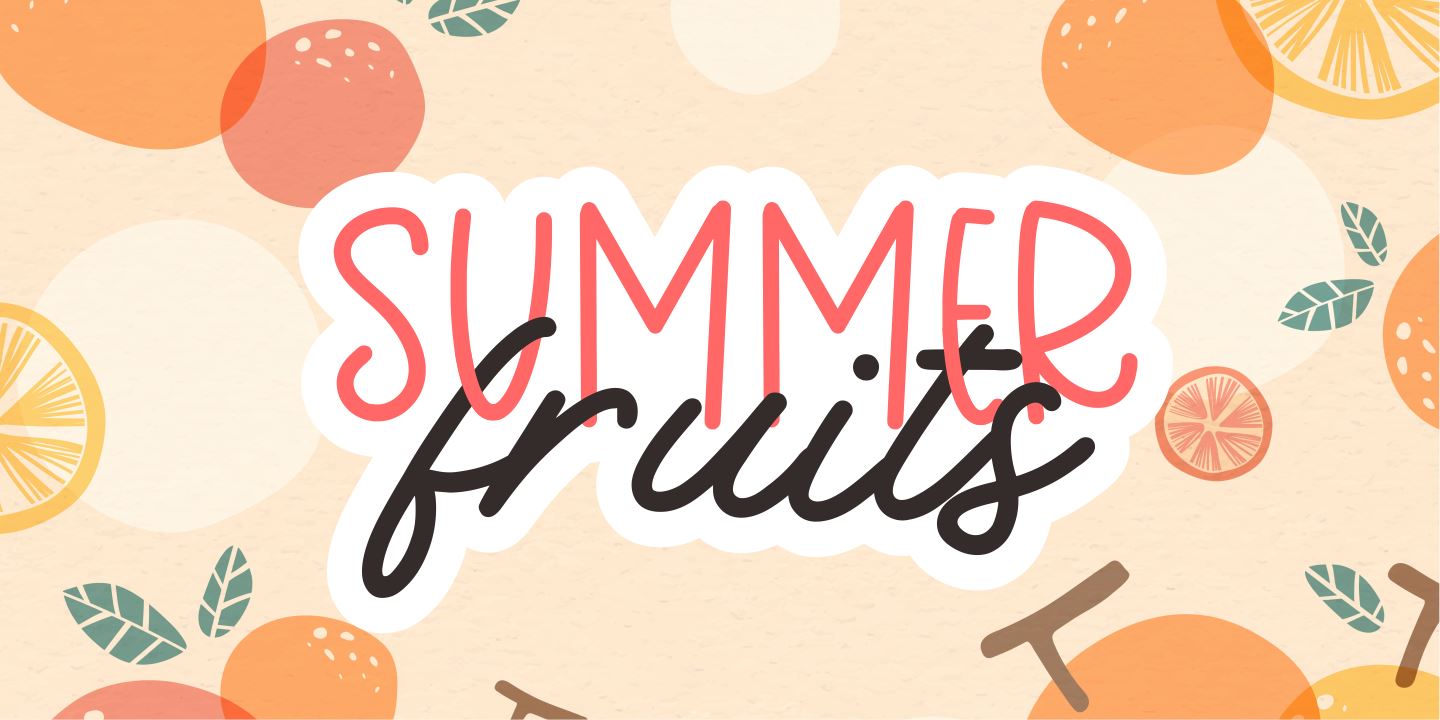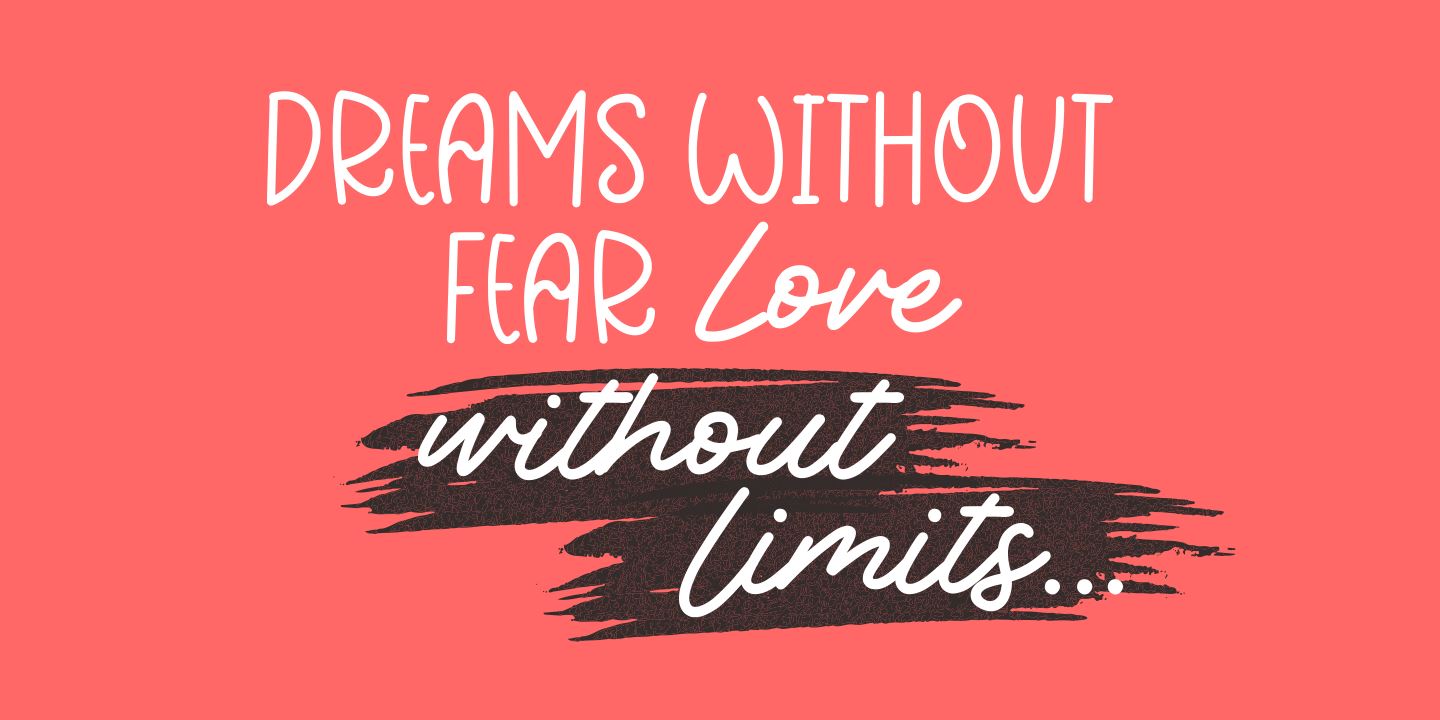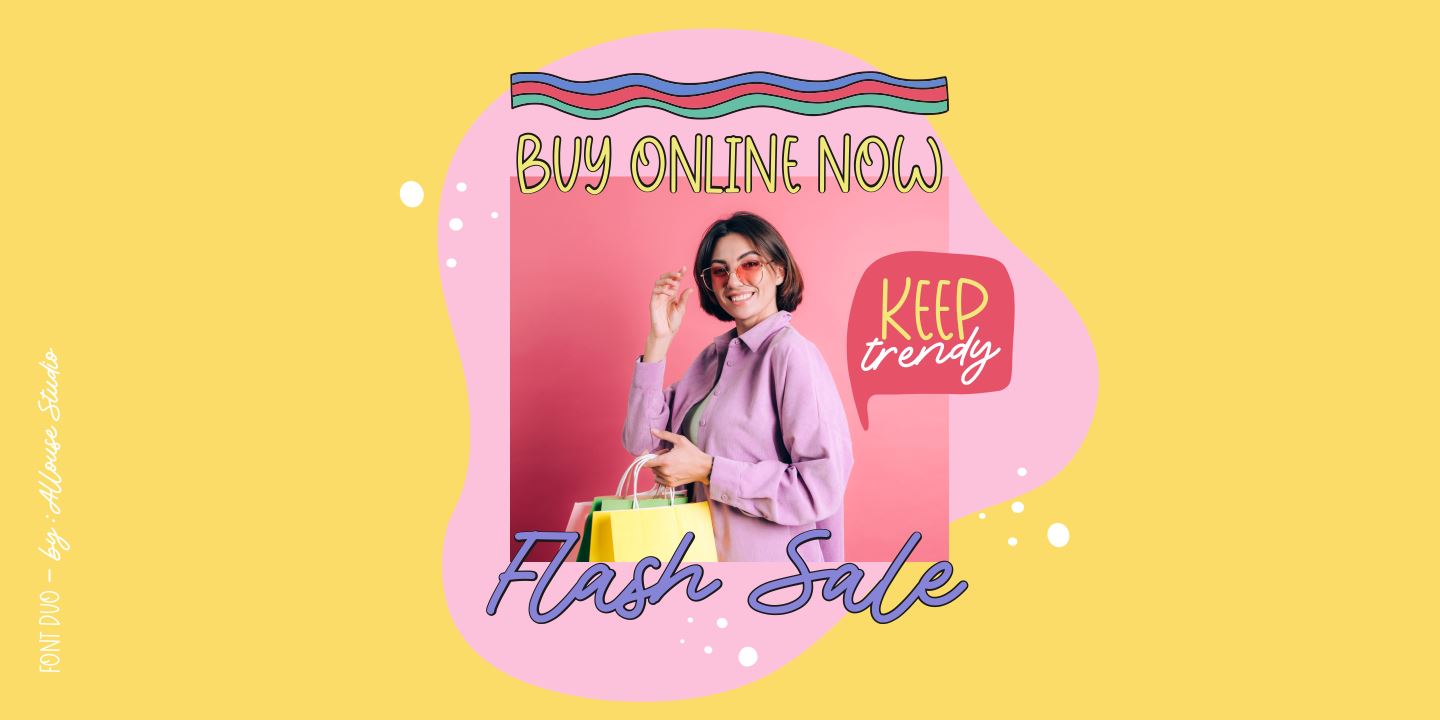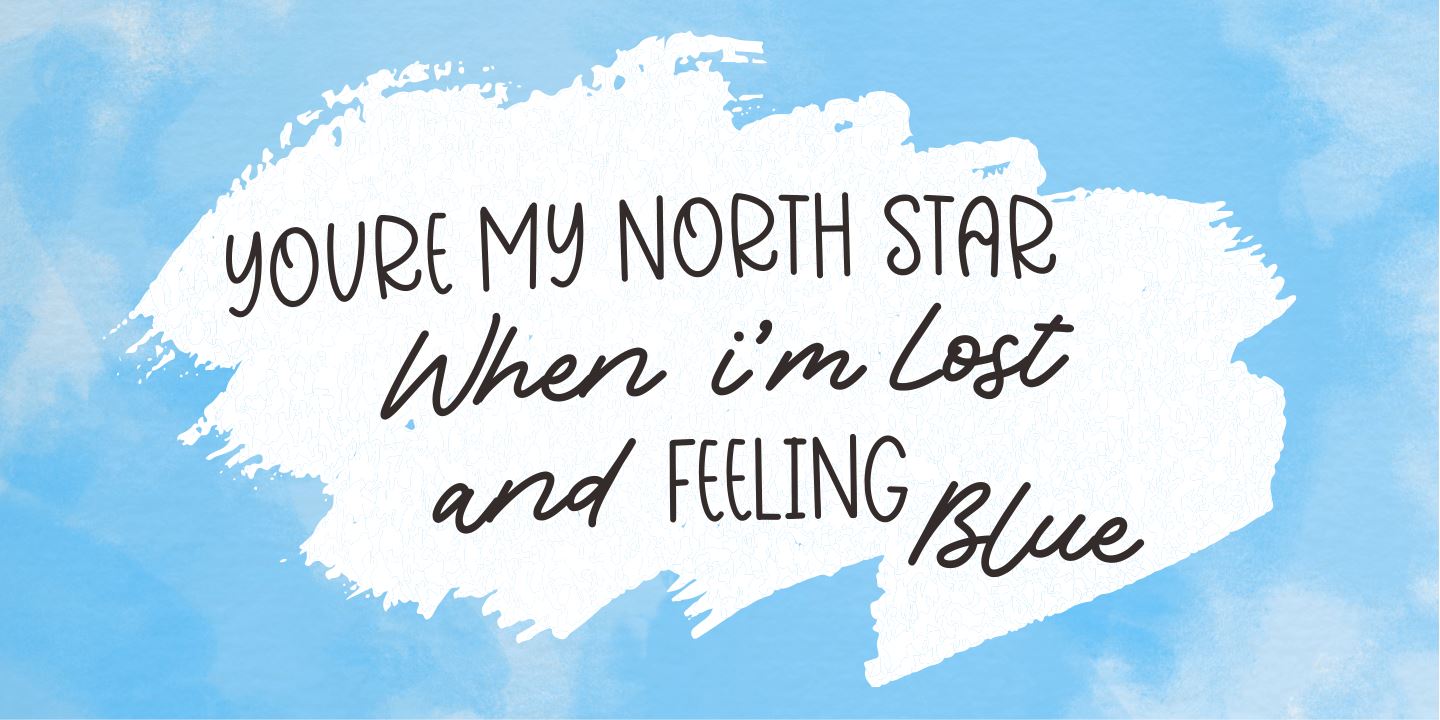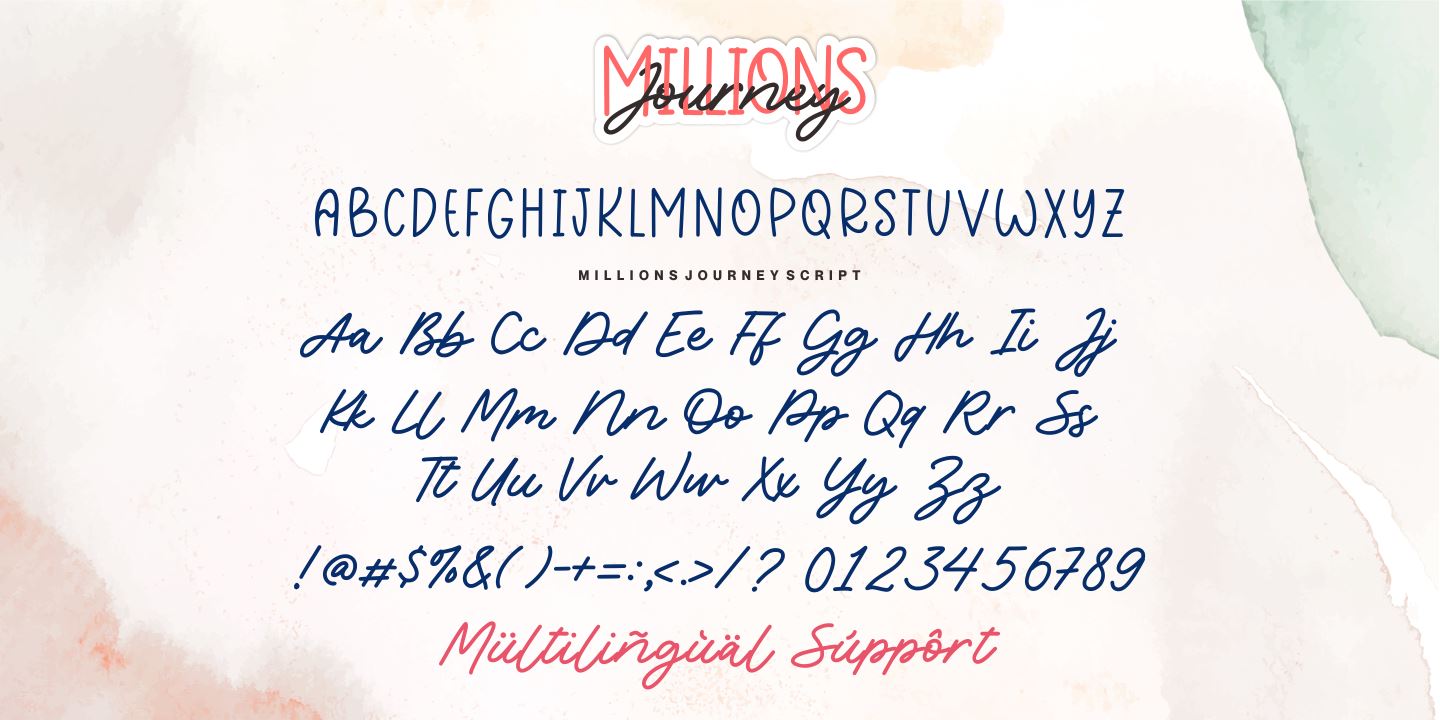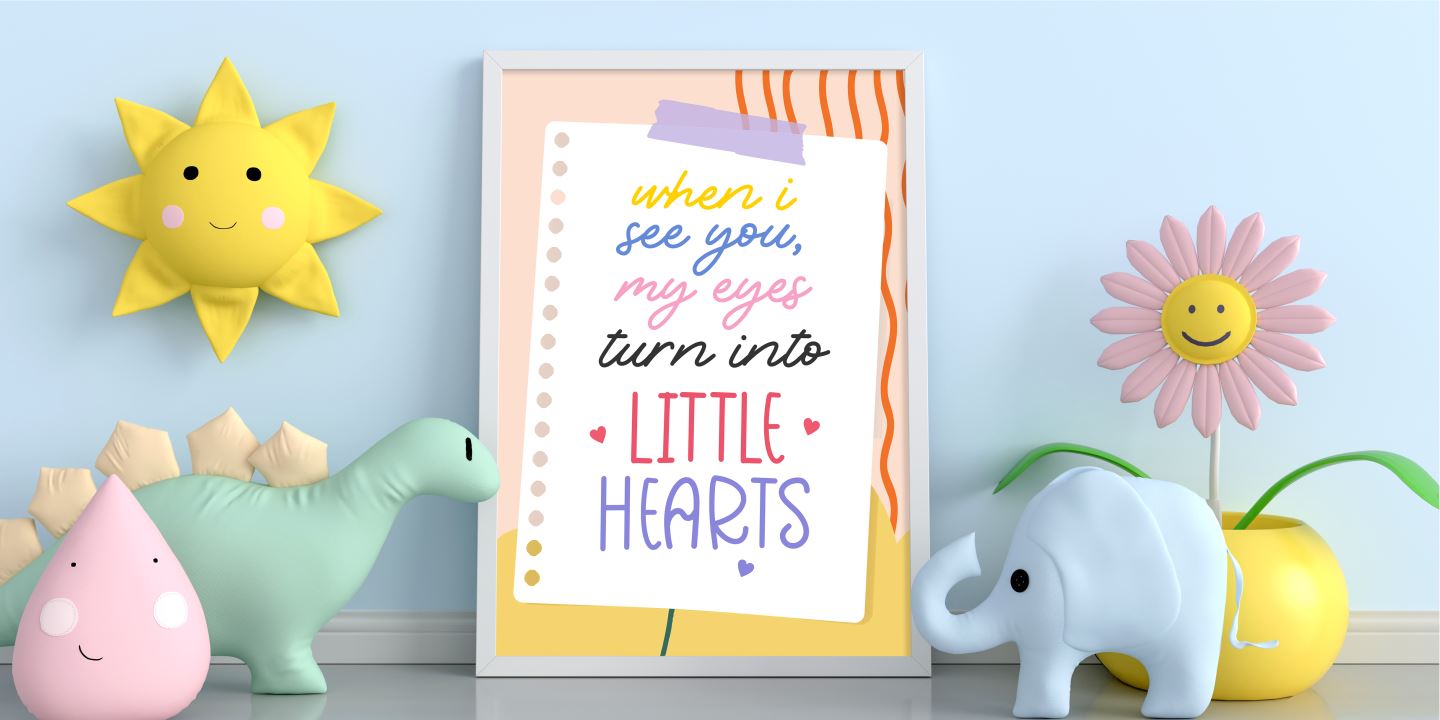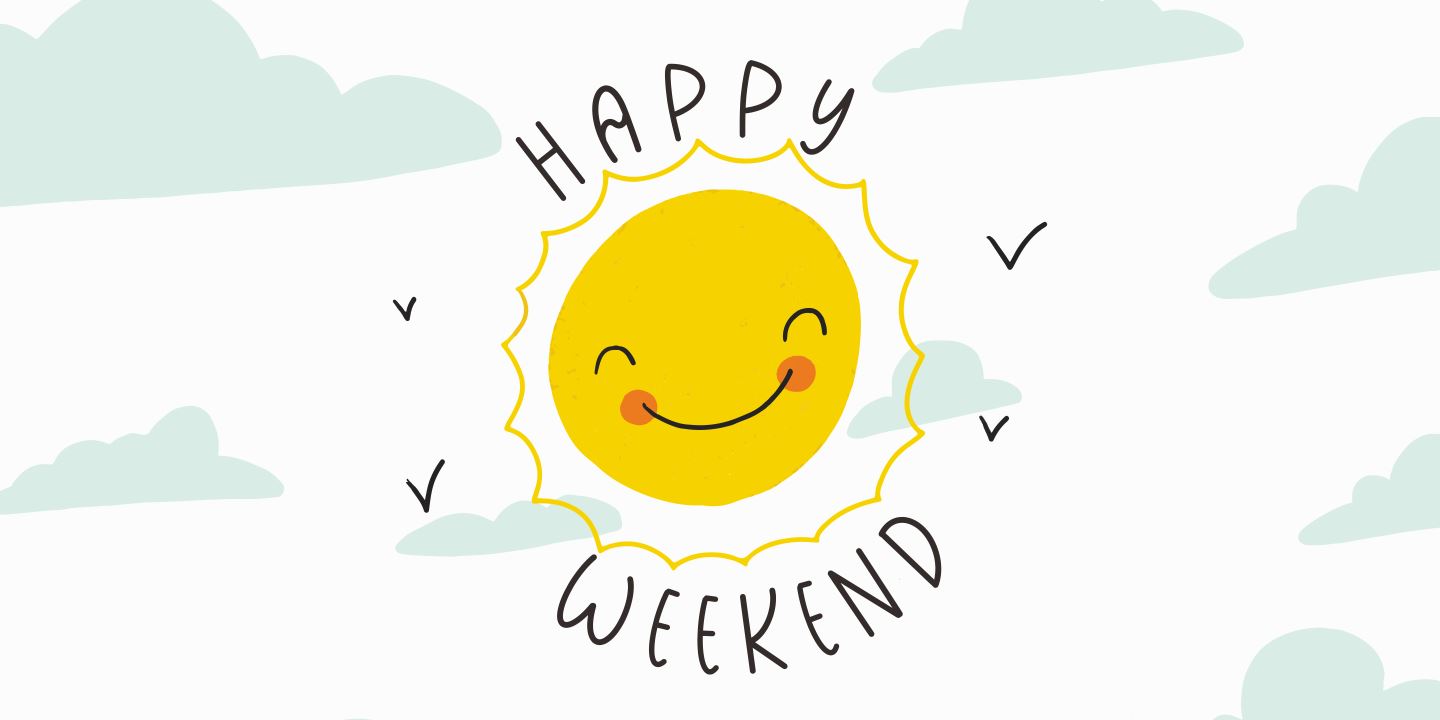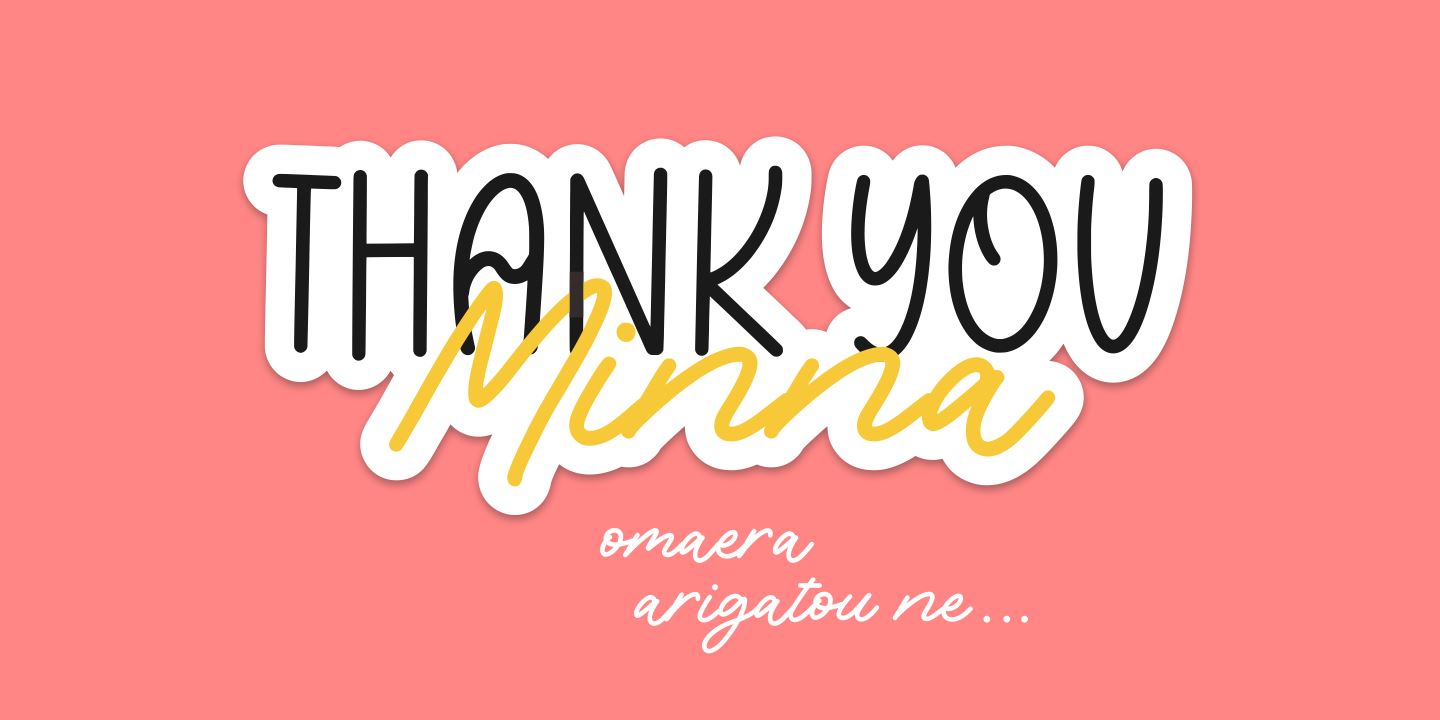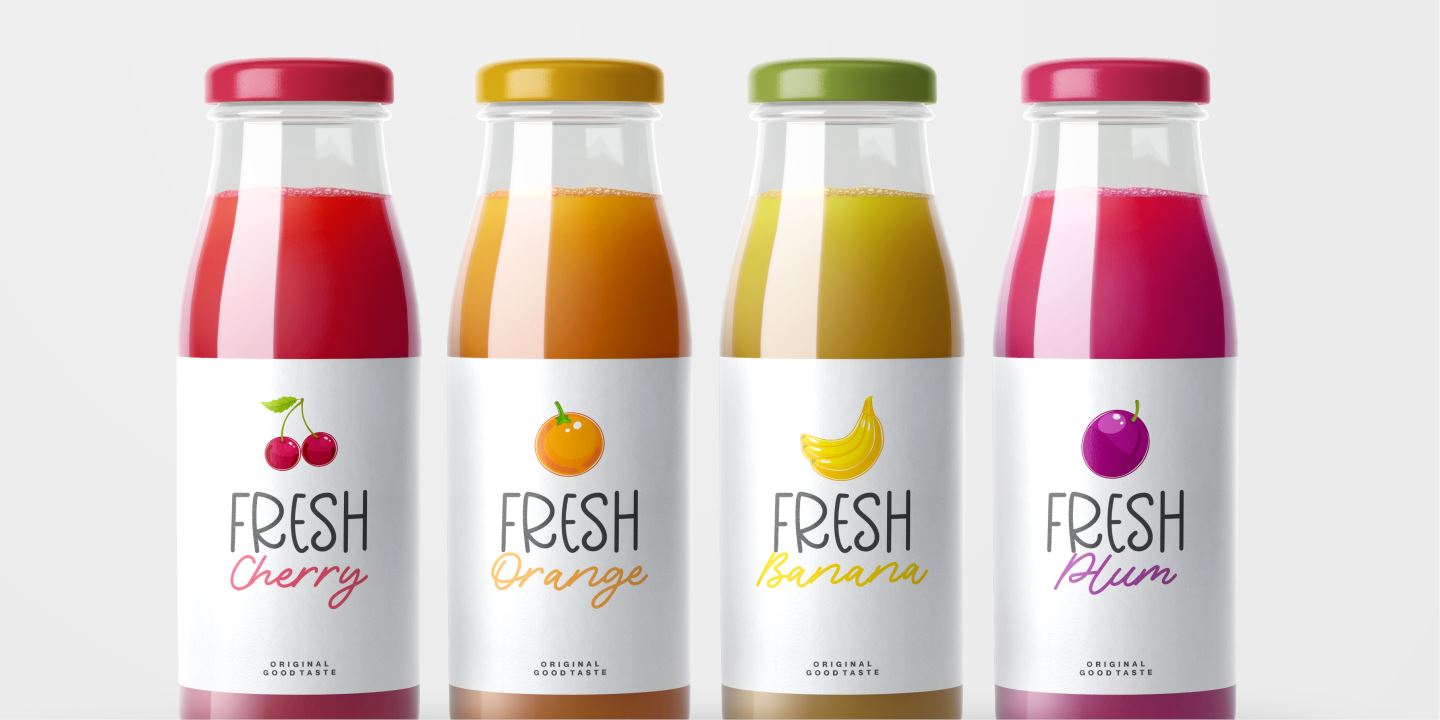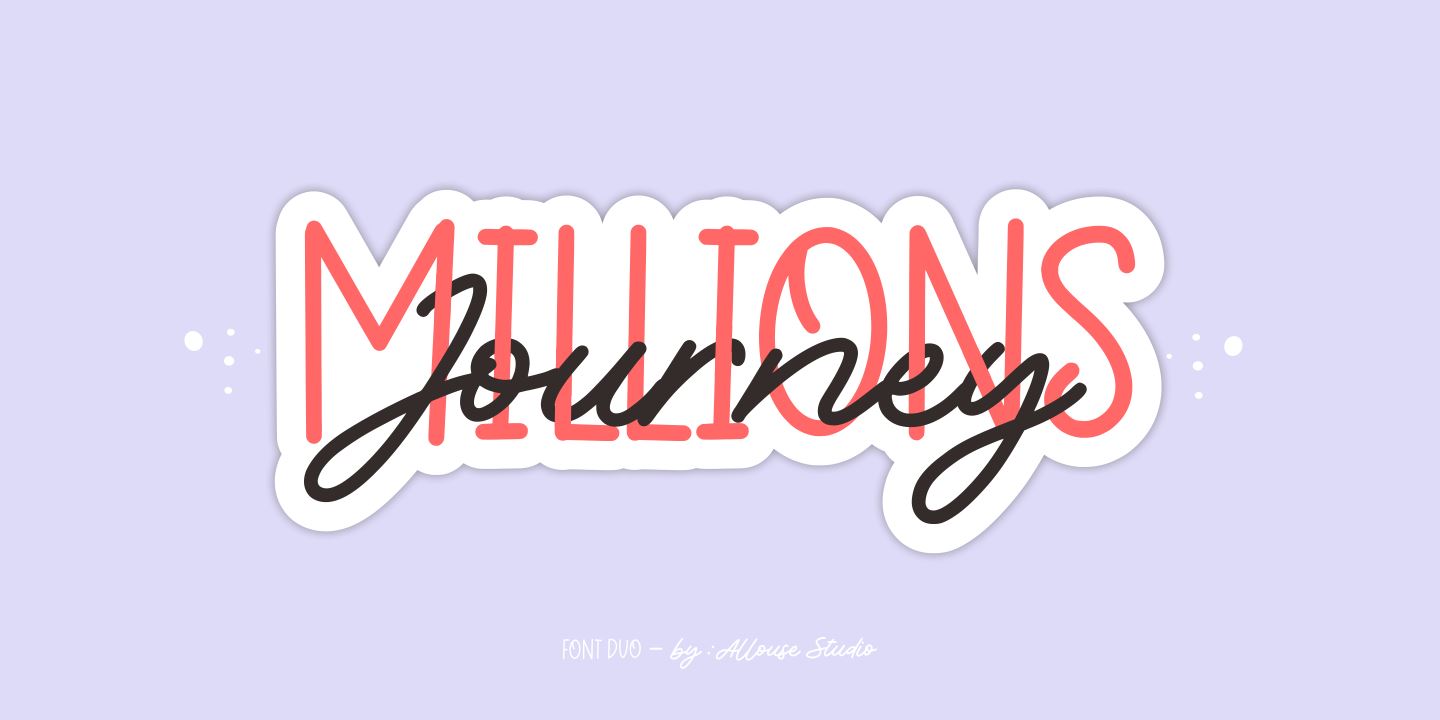
Millions Journey
About Millions Journey
Proudly Present, Millions Journey a lovely font duo. Millions Journey is perfect for any titles, logo, product packaging, branding project, megazine, social media, wedding, or just used to express words above the background. Millions Journey also come with Multi-Lingual Support. Enjoy the font, feel free to comment or feedback, send me PM or email. Thank You!